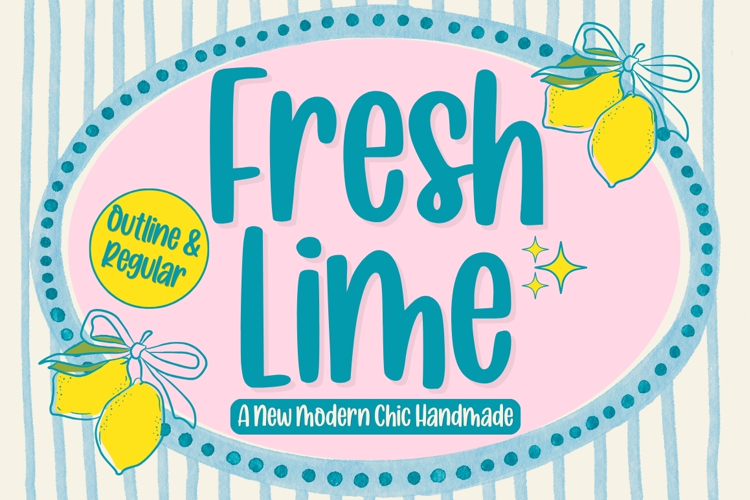
Fresh Lime
Fresh Lime is a vibrant handmade display font inspired by the crisp freshness and lively spirit of citrus. With its bold handcrafted shapes, playful curves, and organic character, this font brings an energetic personality that instantly brightens any design. Carefully crafted to balance charm and readability, Fresh Lime delivers a fun, modern look while maintaining a natural handmade feel.
Designed with versatility in mind, Fresh Lime combines bold display aesthetics with the warmth of authentic hand lettering, making it suitable for both playful and professional creative work.